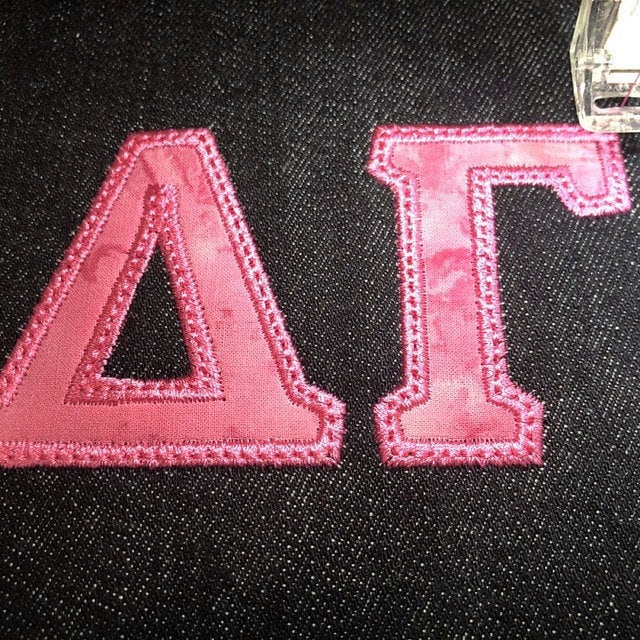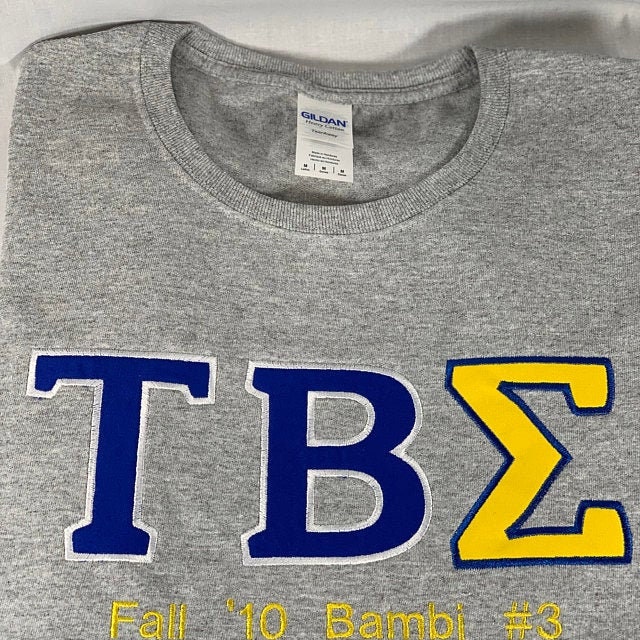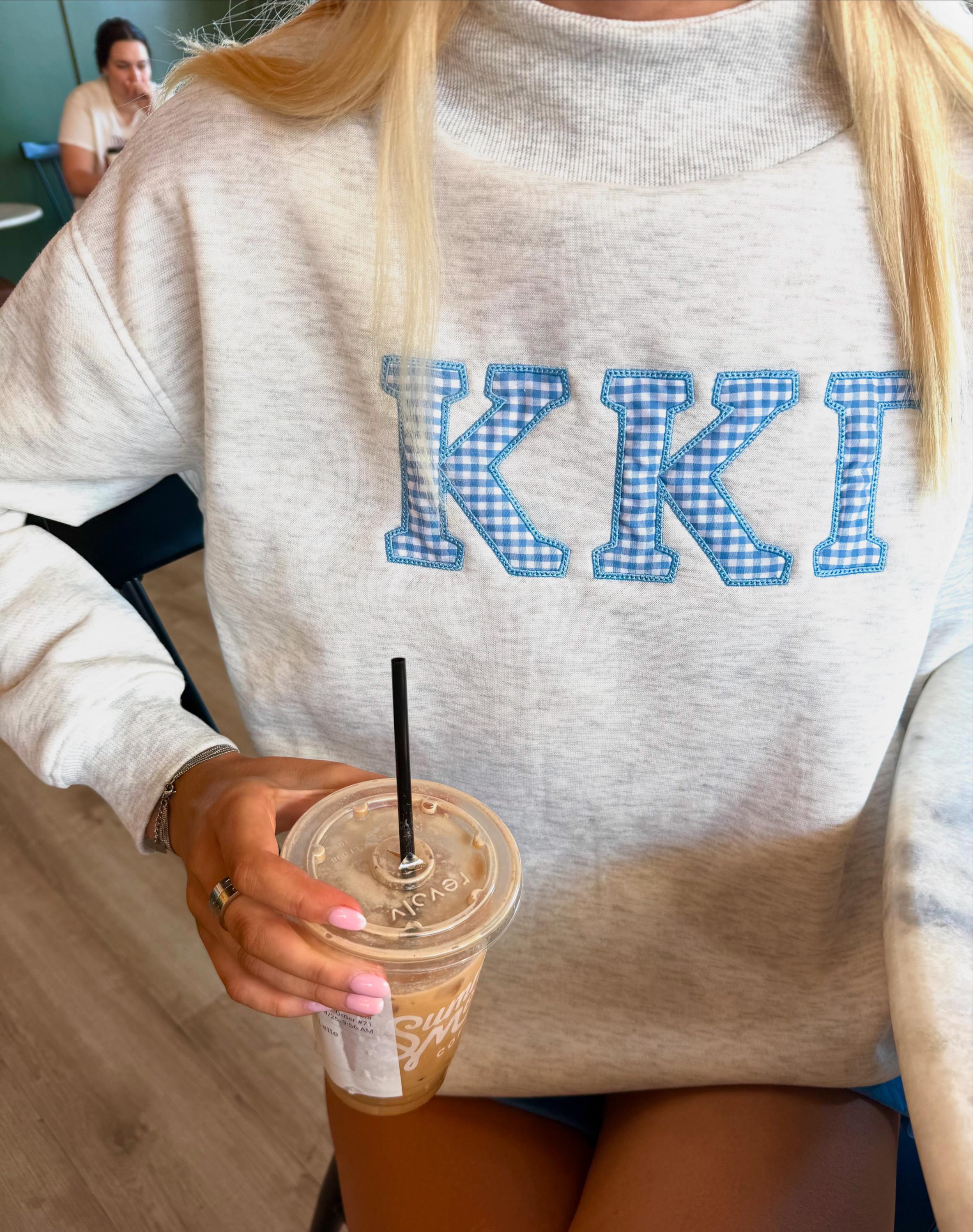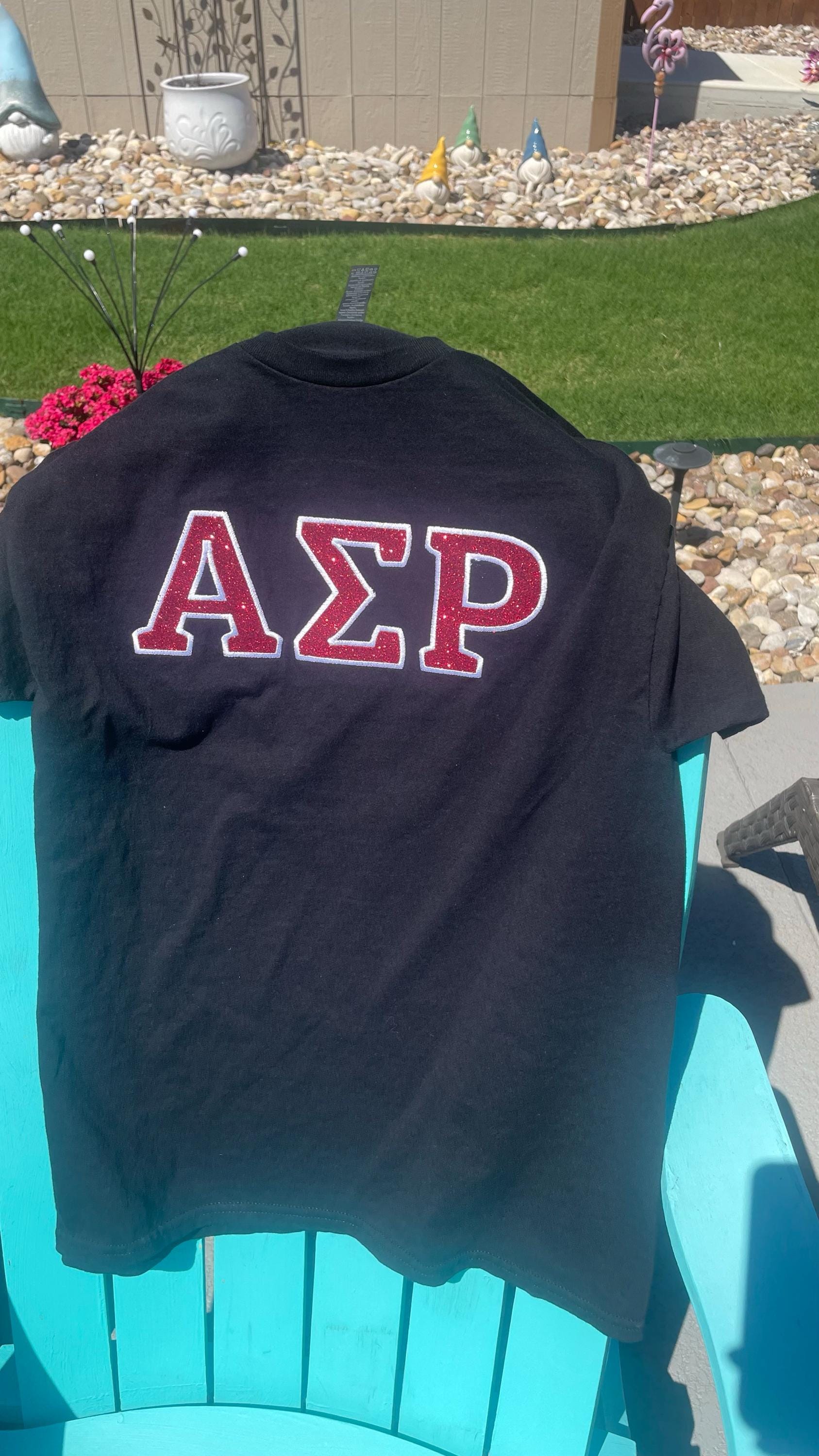
Fraternities and sororities Greek simple applique font with contrast outline (mini font machine embroidery designs)
2 types of applique edge: it means that in a folder are included Applique letters with classic satin stitch and Applique letters satin and neat top stitch to secure the applique satin stitch in the wash!